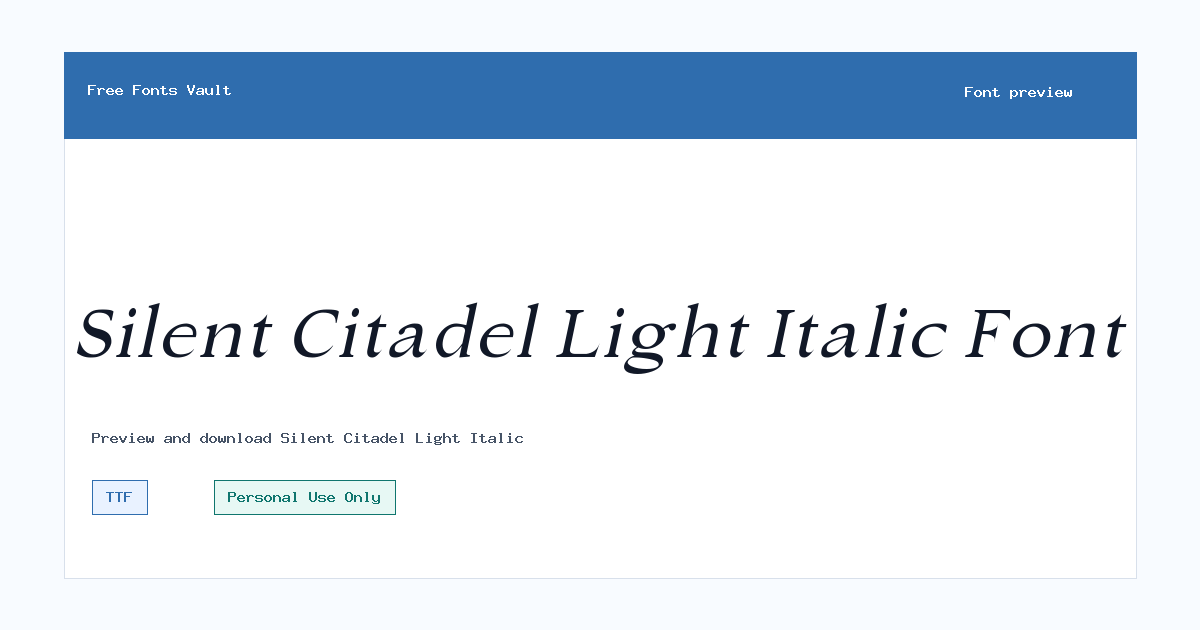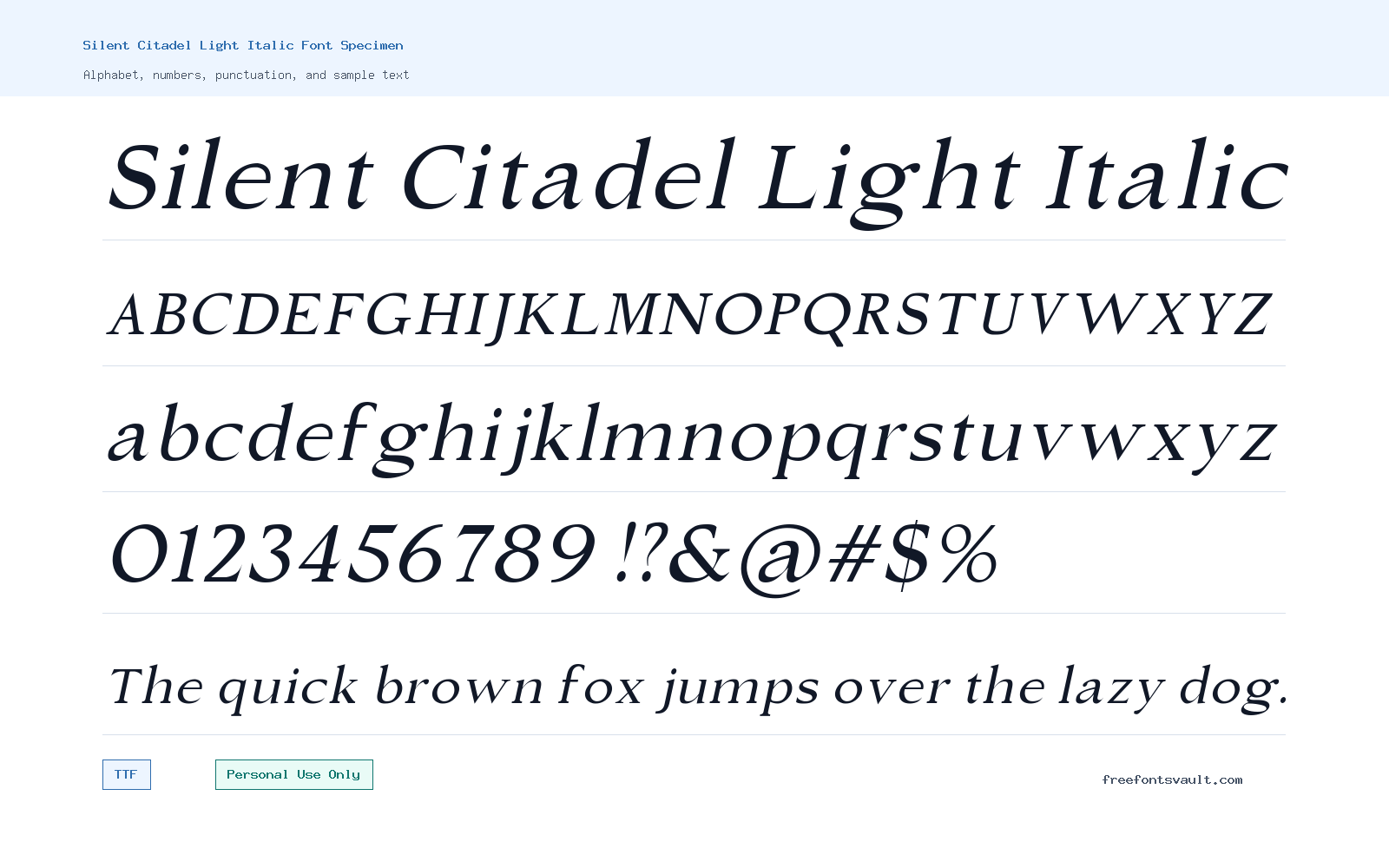
Silent Citadel Light Italic
Silent Citadel Light Italic font preview showing the family name
Silent Citadel Light Italic font specimen showing alphabet, numbers, and sample text
Silent Citadel Light Italic is a light, slanted serif font by Muhamad Fikry Nuralif. It has a refined italic style that works best when you want text to feel graceful without looking heavy.
About Silent Citadel Light Italic
Silent Citadel Light Italic is a TTF font with an italic style and a light weight. Its 300 weight makes it better suited to display use than dense body copy, especially if the design needs a delicate, formal, or editorial tone. The italic angle gives words a sense of movement, while the serif structure keeps the font grounded and readable in short settings. It is a good font to test for titles, name marks, invitation-style text, quote graphics, book-cover concepts, packaging studies, and social media layouts where a lighter serif voice fits the mood.
Because this is a light italic cut, it should be used with care. Thin strokes can lose clarity at very small sizes, on low-resolution screens, or over busy backgrounds. For posters, logo drafts, and web mockups, try it first in larger sizes with strong contrast between the text and background. It can look especially useful for short phrases, subtitles, elegant headings, pull quotes, and decorative branding concepts. For longer paragraphs, pair it with a simpler roman serif, a clean sans serif, or a more neutral text face so the page stays easy to read.
• Light 300 weight with an italic serif style, useful for refined headings and short display text.
• Best used at larger sizes where the lighter strokes and italic details remain clear.
• Works well as an accent face beside a plain sans serif or readable roman serif.
• Elegant poster headlines and short typographic compositions
• Logo concepts, wordmarks, and brand moodboard exploration
• Invitation-style layouts, quote graphics, and social media posts
• Book cover drafts, editorial title pages, and packaging mockups
• Web design mockups where a light italic serif is needed as an accent
Use Silent Citadel Light Italic where the text can breathe. Give it enough size, spacing, and contrast so the light strokes do not disappear. It is better for names, titles, quotes, and decorative phrases than for menus, captions, long articles, or small mobile text. If you use it in a logo mockup, test the wordmark in black, white, and one-color versions to make sure the italic form still reads clearly. For pairing, keep the companion font simple: a neutral sans serif can make it feel modern, while a readable roman serif can support a more editorial look. Avoid pairing it with another highly decorative italic unless the layout is intentionally ornamental.
What type of font is Silent Citadel Light Italic?
Who designed Silent Citadel Light Italic?
The designer is listed as Muhamad Fikry Nuralif, also shown as the foundry name.
What is Silent Citadel Light Italic best used for?
It is best for short display text such as titles, poster headlines, invitations, quotes, logo concepts, book-cover drafts, and elegant web mockups.
Can I use Silent Citadel Light Italic for body text?
It may work for very short passages, but it is not the safest choice for long body copy. The light italic style is easier to read in headings, accents, and short lines.
What should I pair with Silent Citadel Light Italic?
Pair it with a clean sans serif or a readable roman serif. Keep the second font simple so the italic serif can act as the main accent.